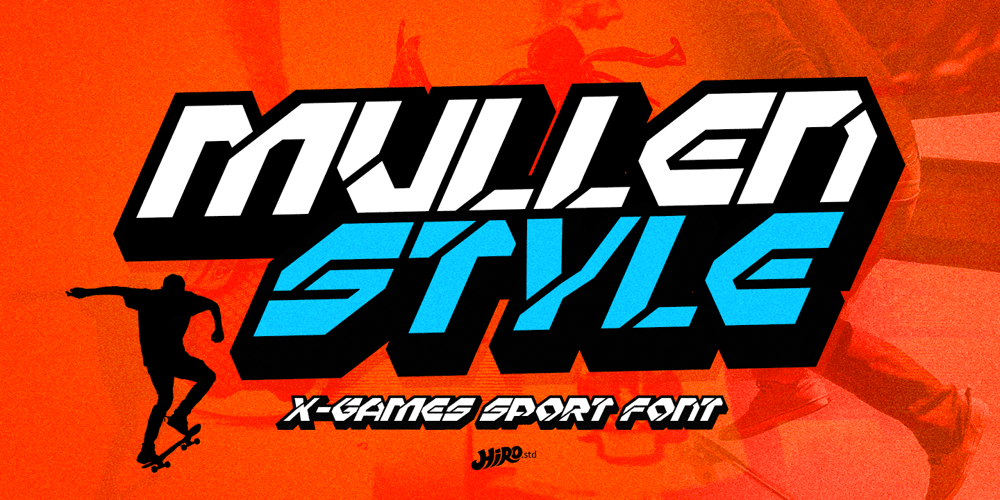
Mullen Style
Mullen Style font
Mullen Style Font Family was designed by Chairul Ashar and published by HIRO.std. Mullen Style contains 2 styles and family package options. Mullen Style is X-Games Sport Font. This font describes about Sporty, Fast, Extreme, Games, Clean, Modern and easy to use. FEATURES- Uppercase letters- Numbering and Punctuations- PUA Encoded Characters- Multilingual Support- Works on PC or Mac–Uppercase USEMullen Style works great in movie title, game title, headline, logotype, labels, magazine, packaging, apparel, and any projects that need X-Games Sport taste. Enjoy using!Thanks. HIRO.std